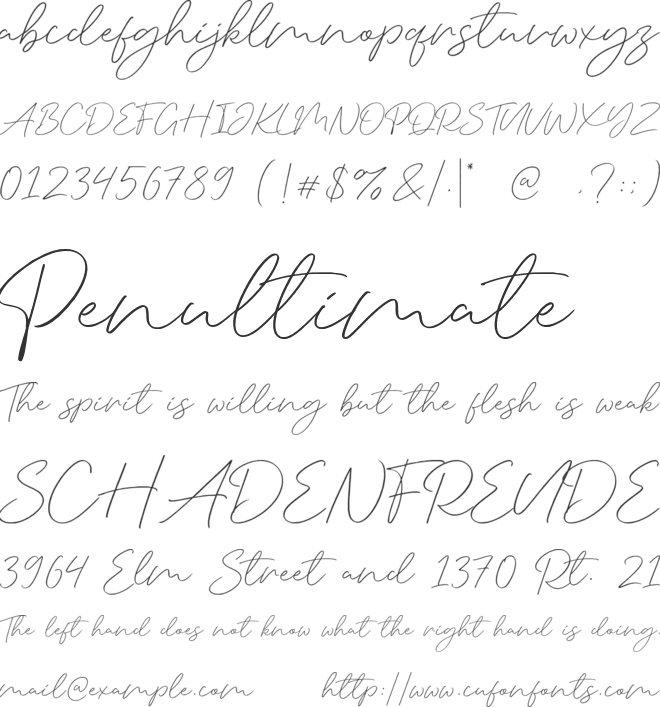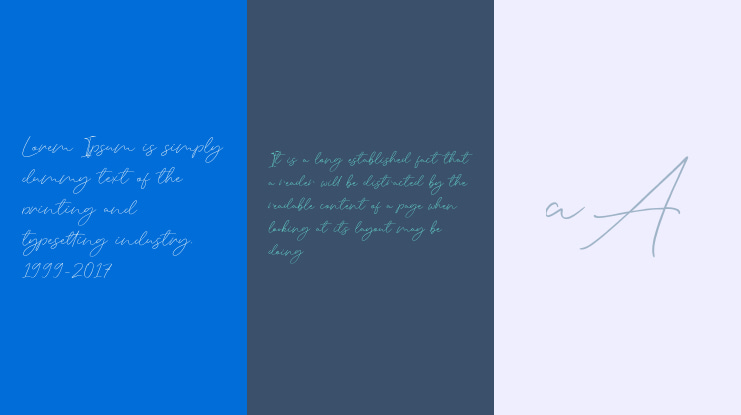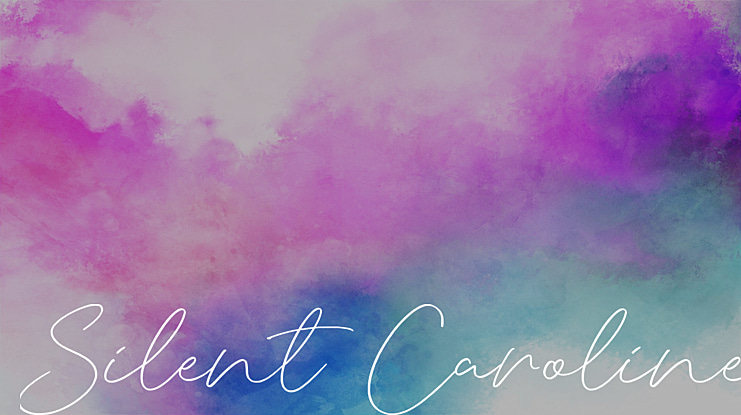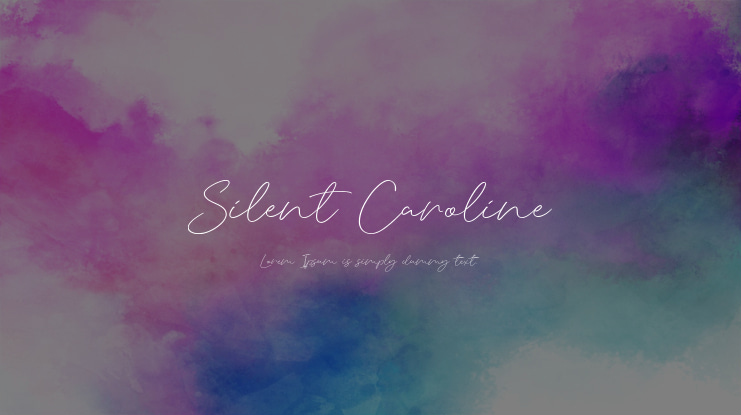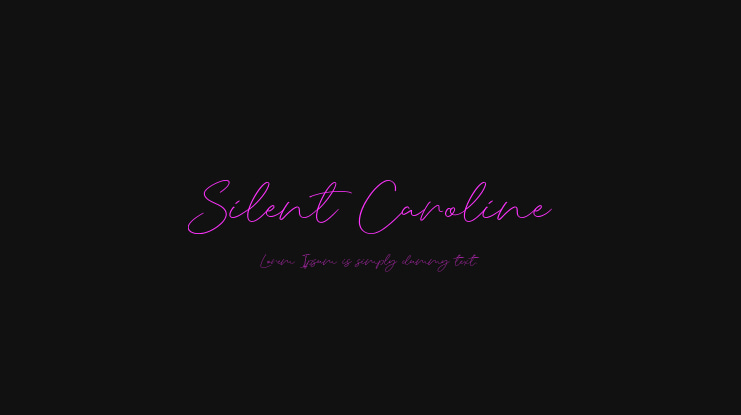
Silent Caroline Font
Introducing by Letterative Studio : Silent Caroline Font
Silent Caroline is a Luxury Monoline Script Font
Silent Caroline is perfect for product packaging, branding project, magazine, social media, weddings, or just used to express words above the background.
Silent Caroline also multilingual support